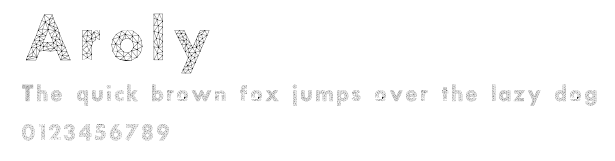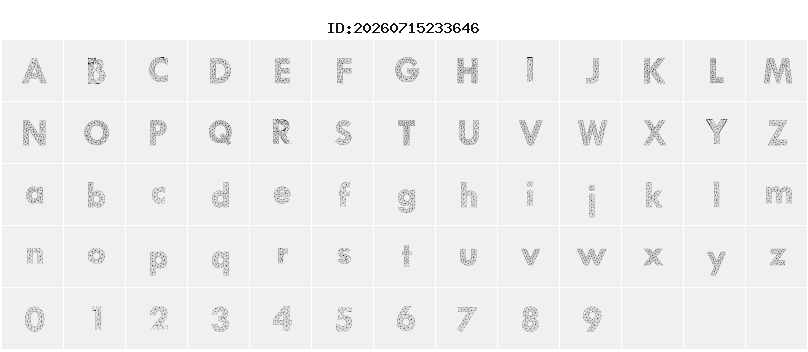
Aroly Preview
• Font Name: Aroly
• Full Font Name: Aroly
• PostScript Name: Aroly
About Aroly.ttf
Aroly.ttf is a modern, elegant sans-serif font designed for ultimate readability and visual harmony. Perfect for branding, headlines, web design, and print materials.